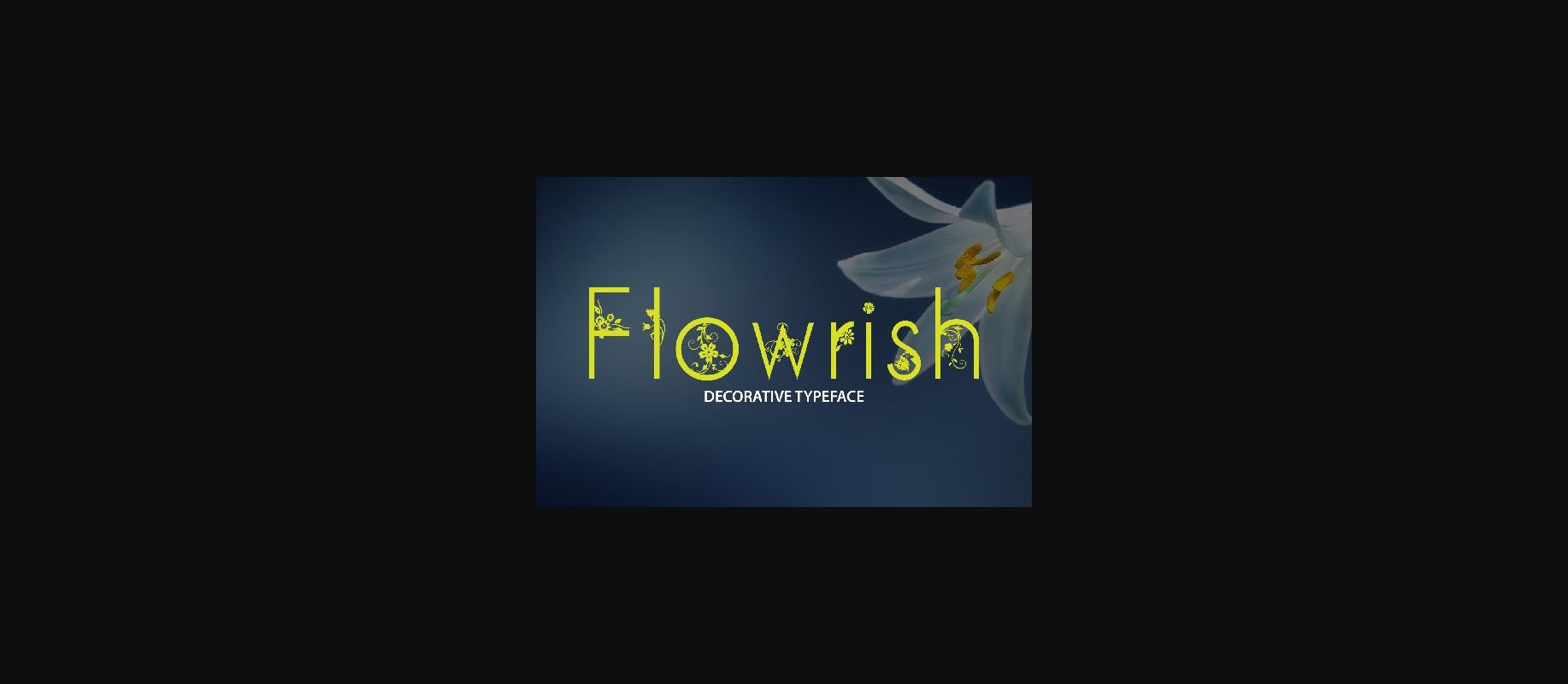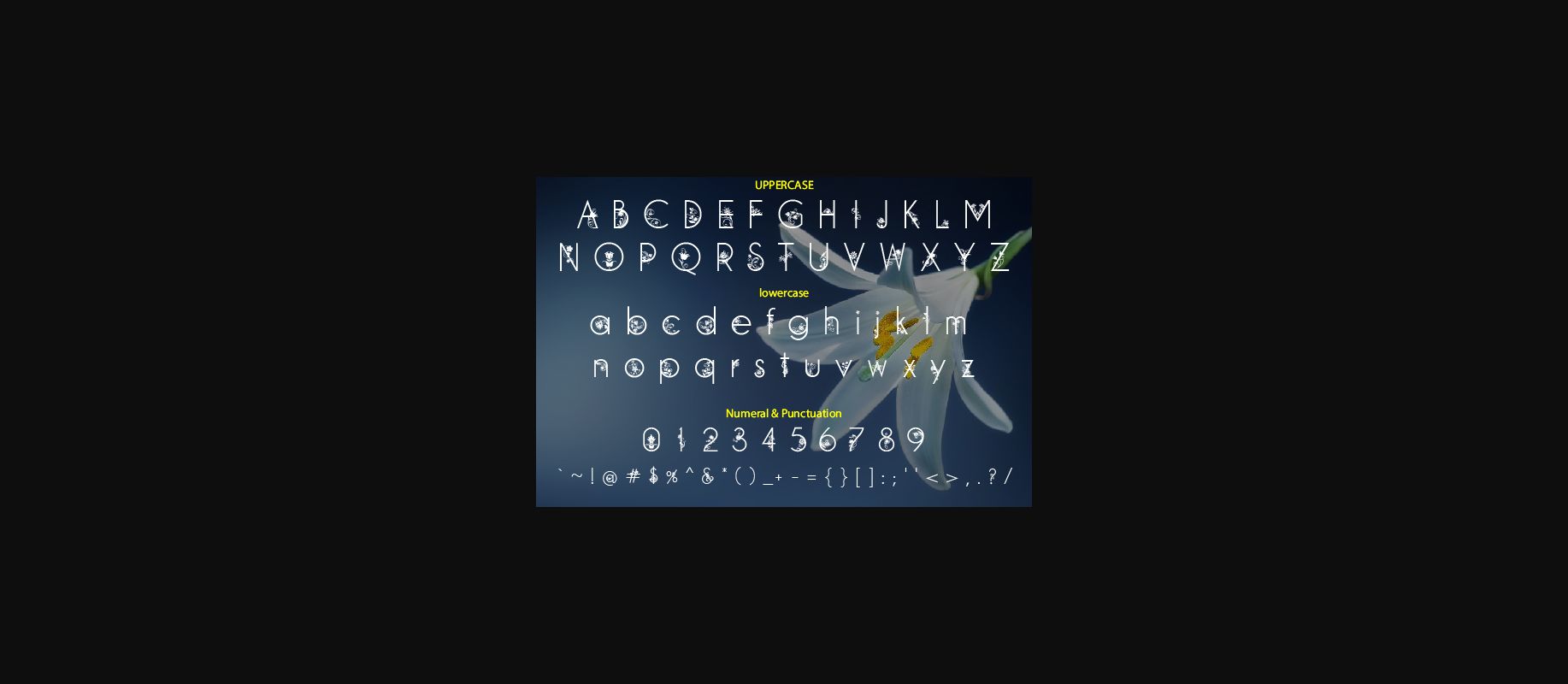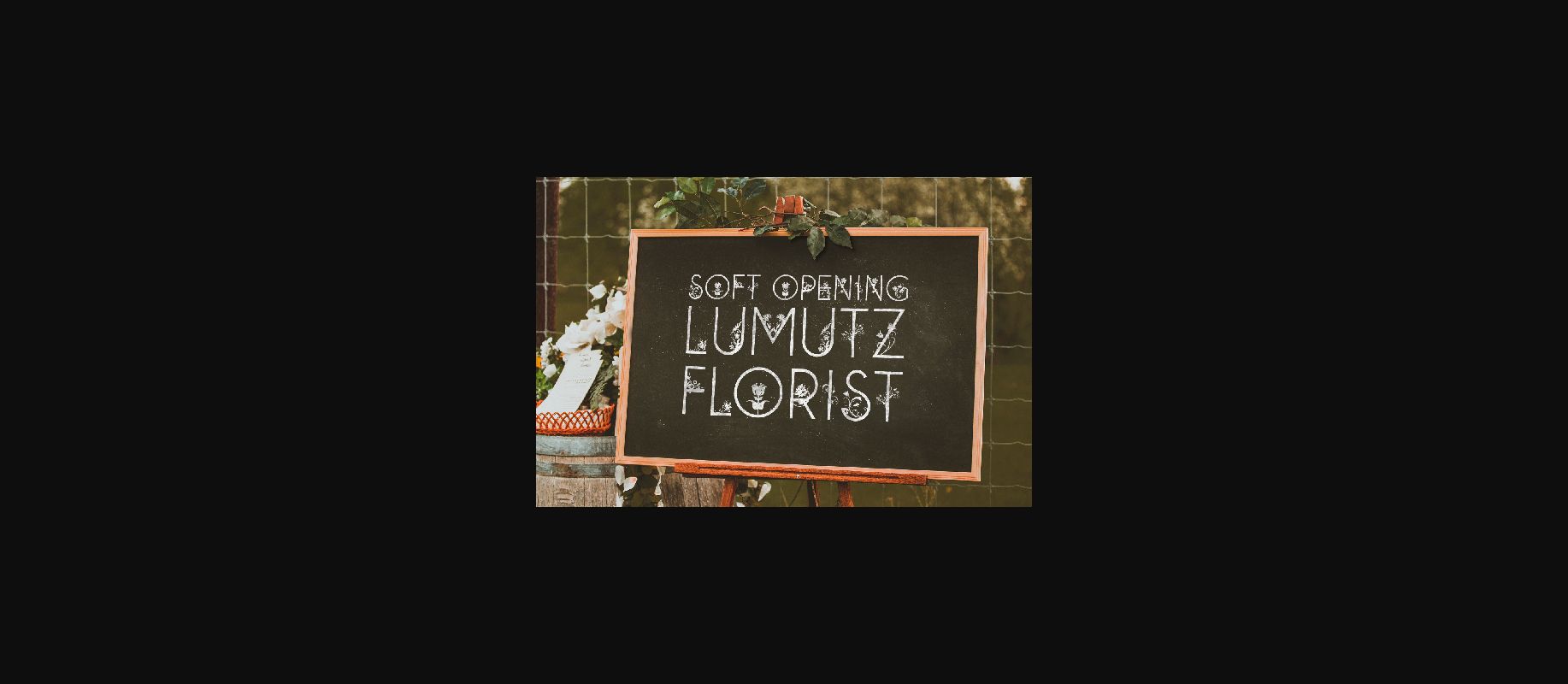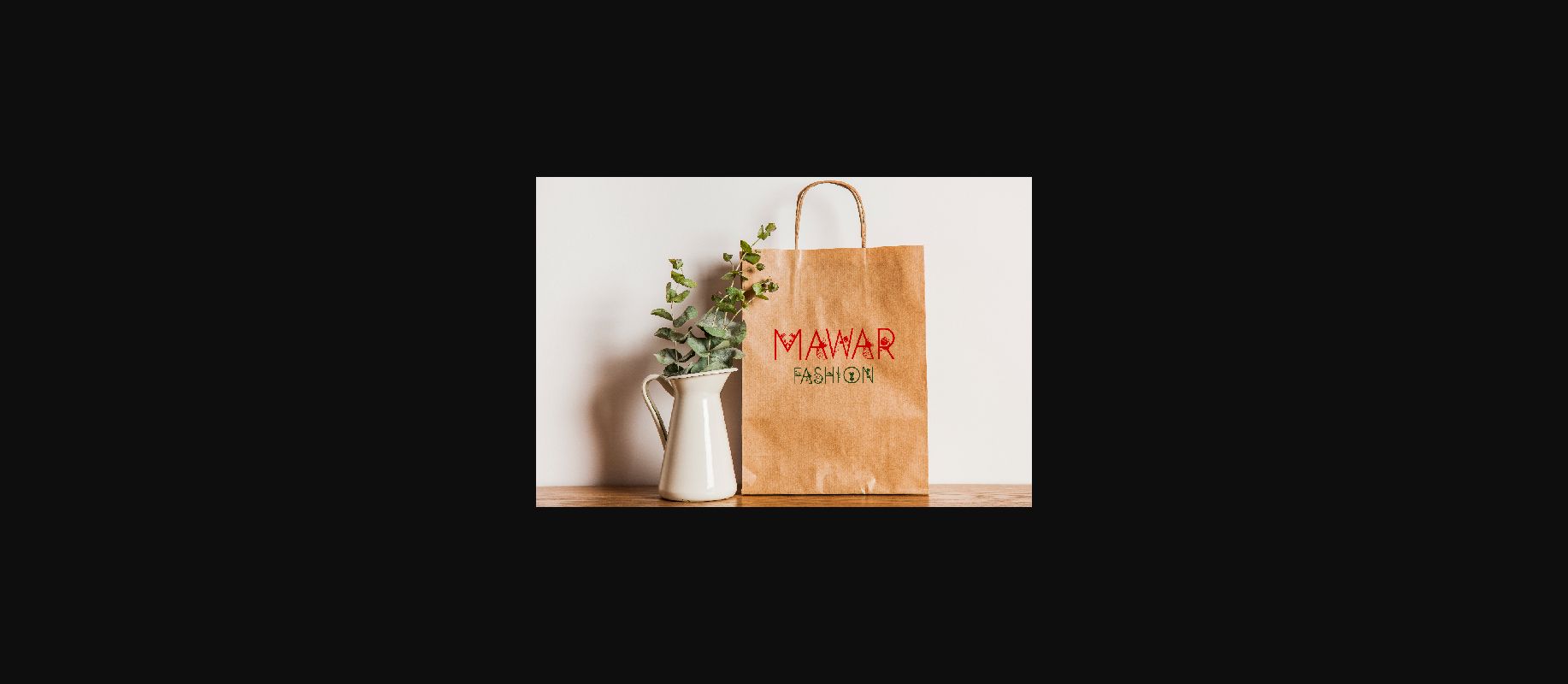
About Flowrish Font
Flowrish is a beautiful and delicate flower-themed font with a unique botanical twist. Fall in love with its decorative elements and use it for any nature-inspired project.